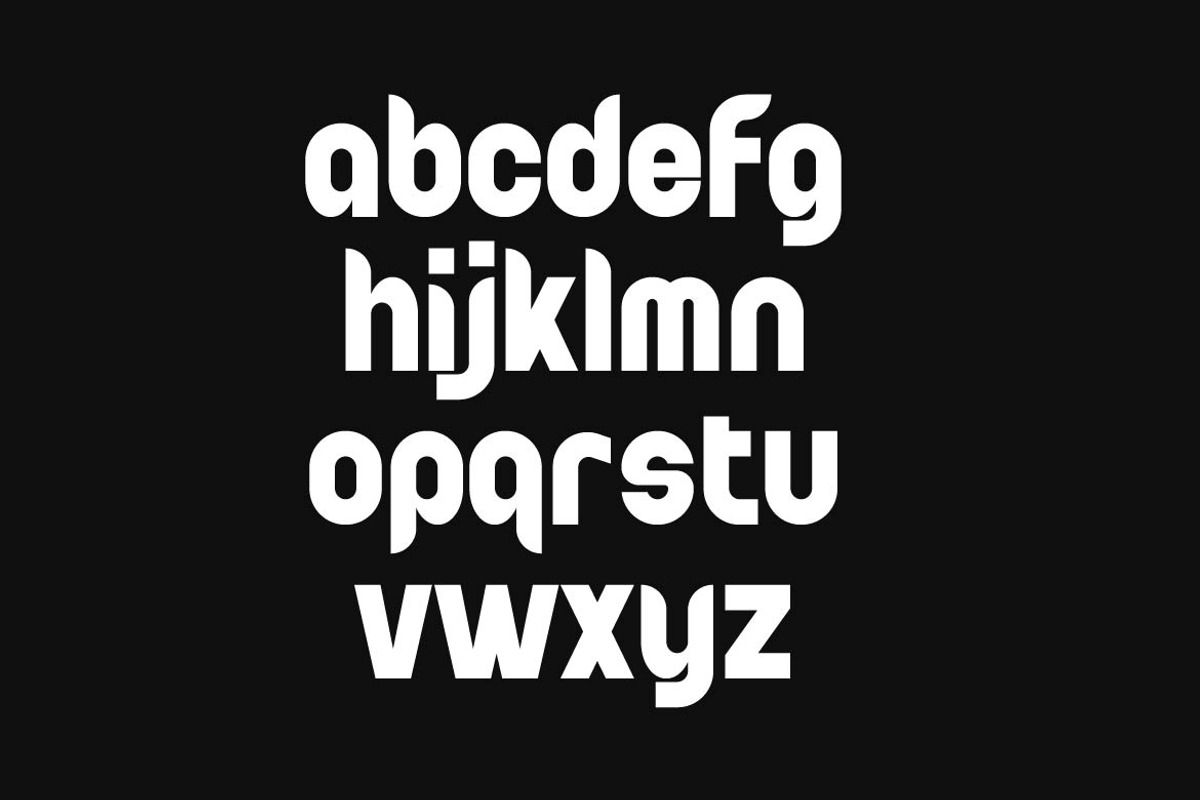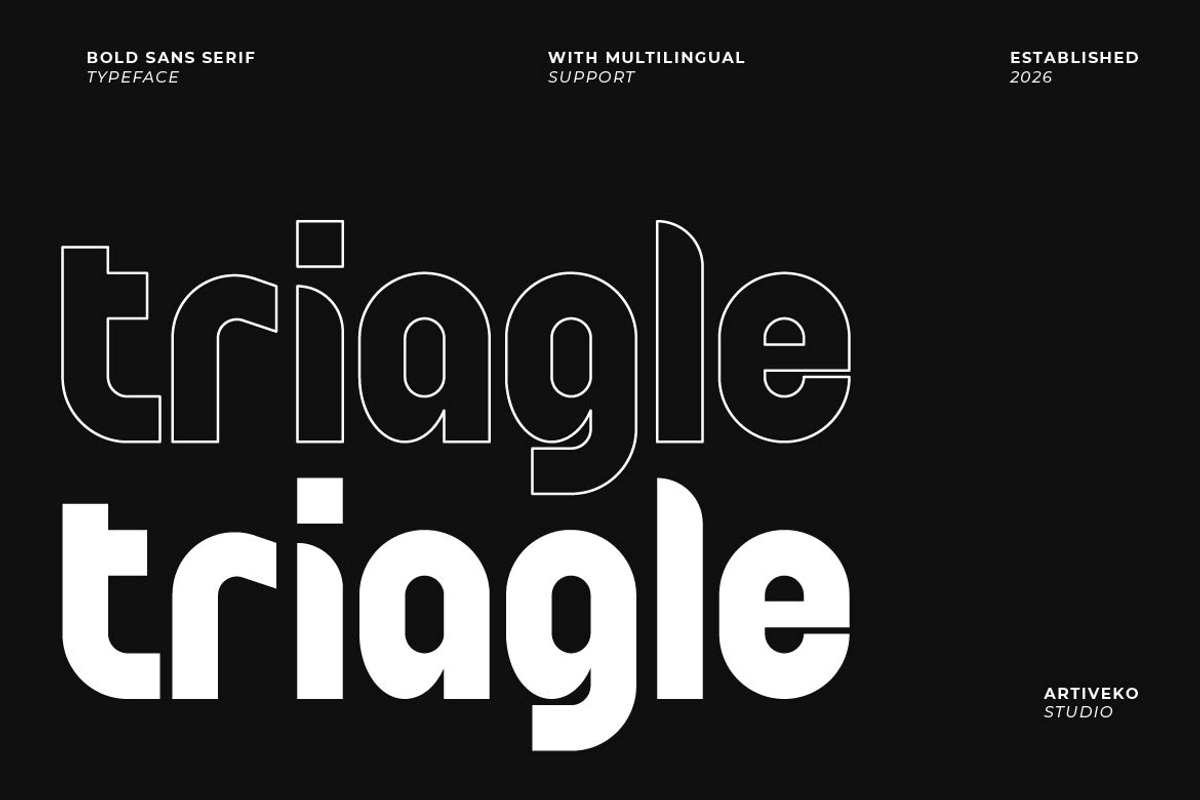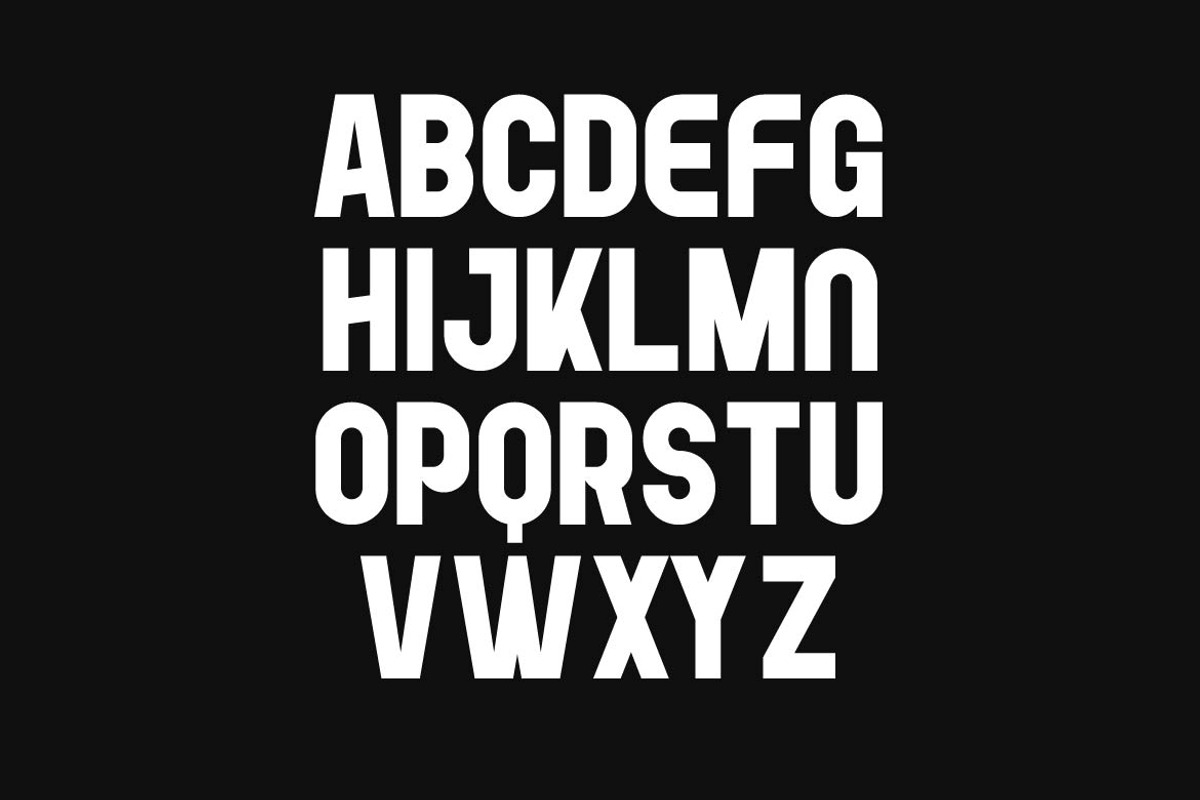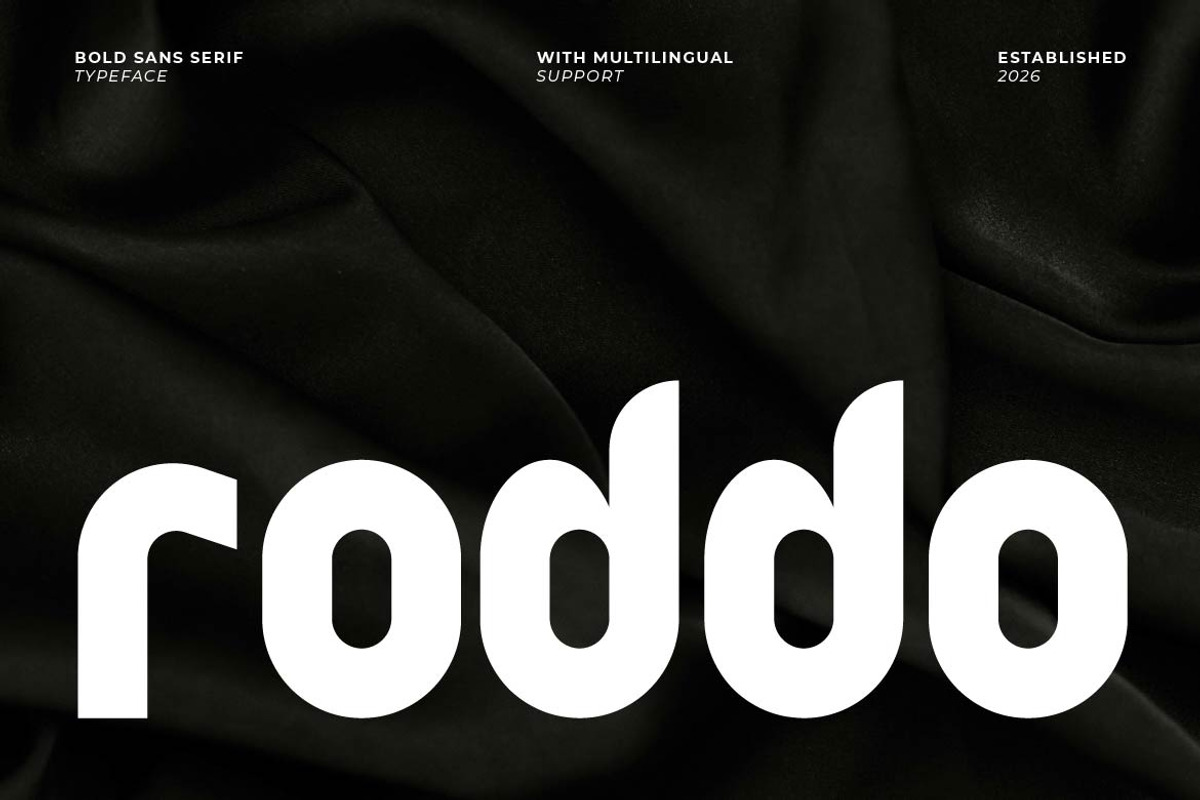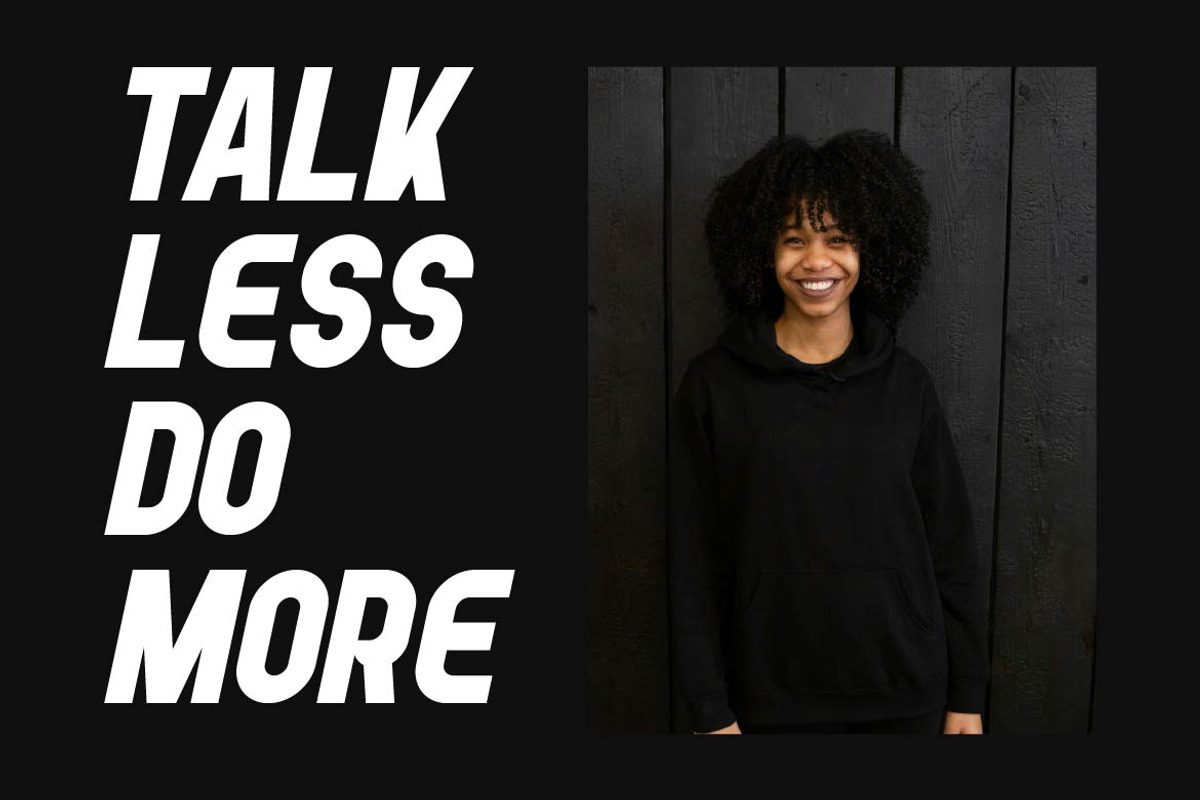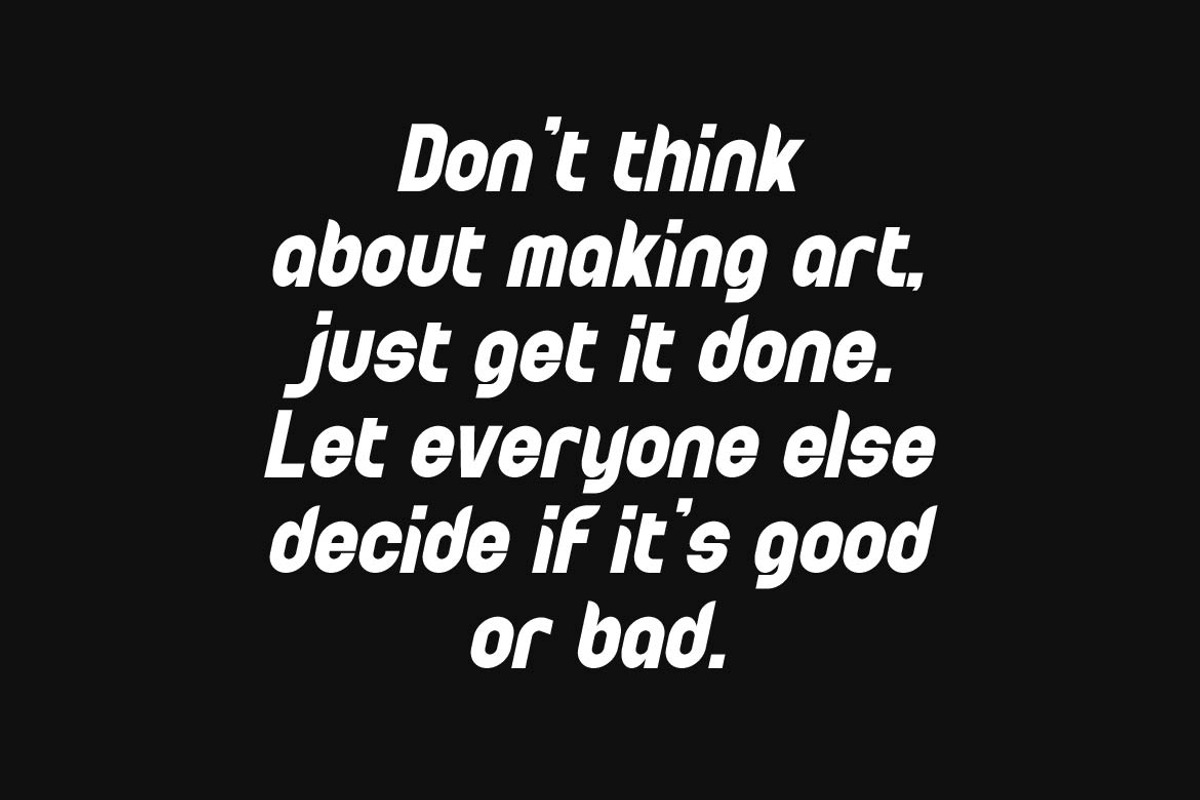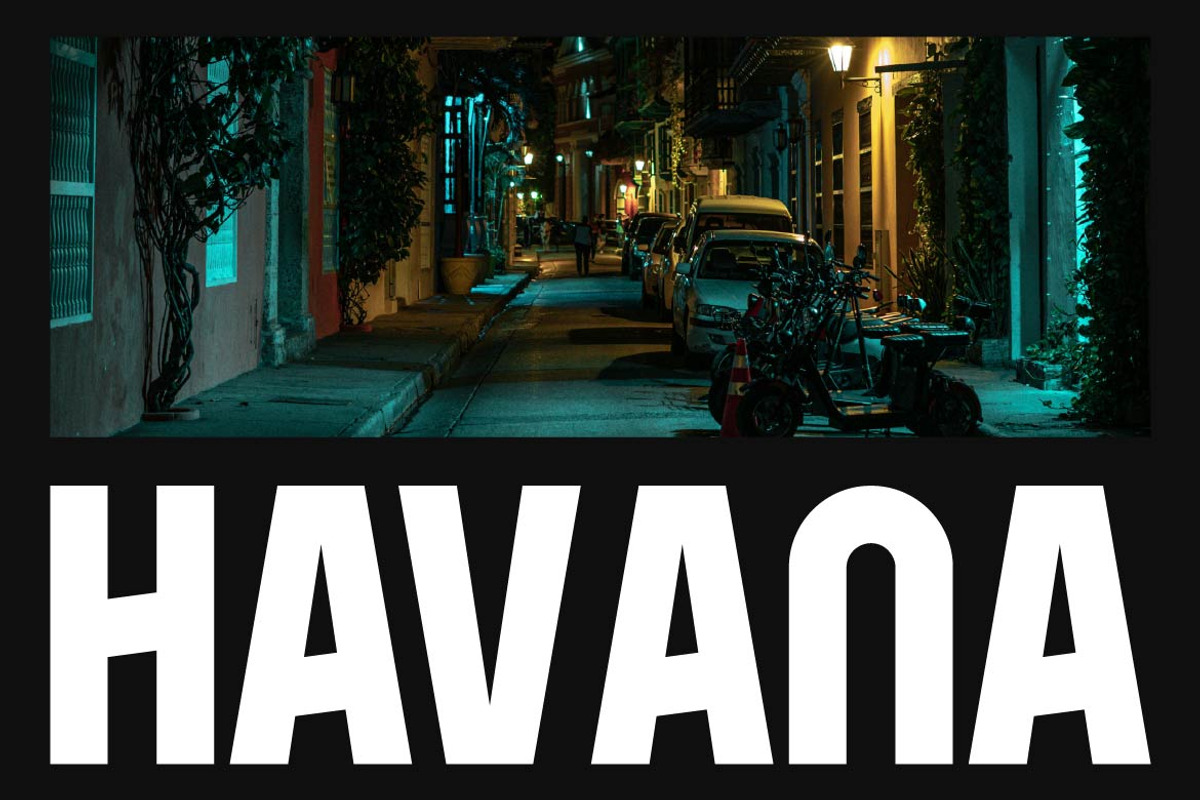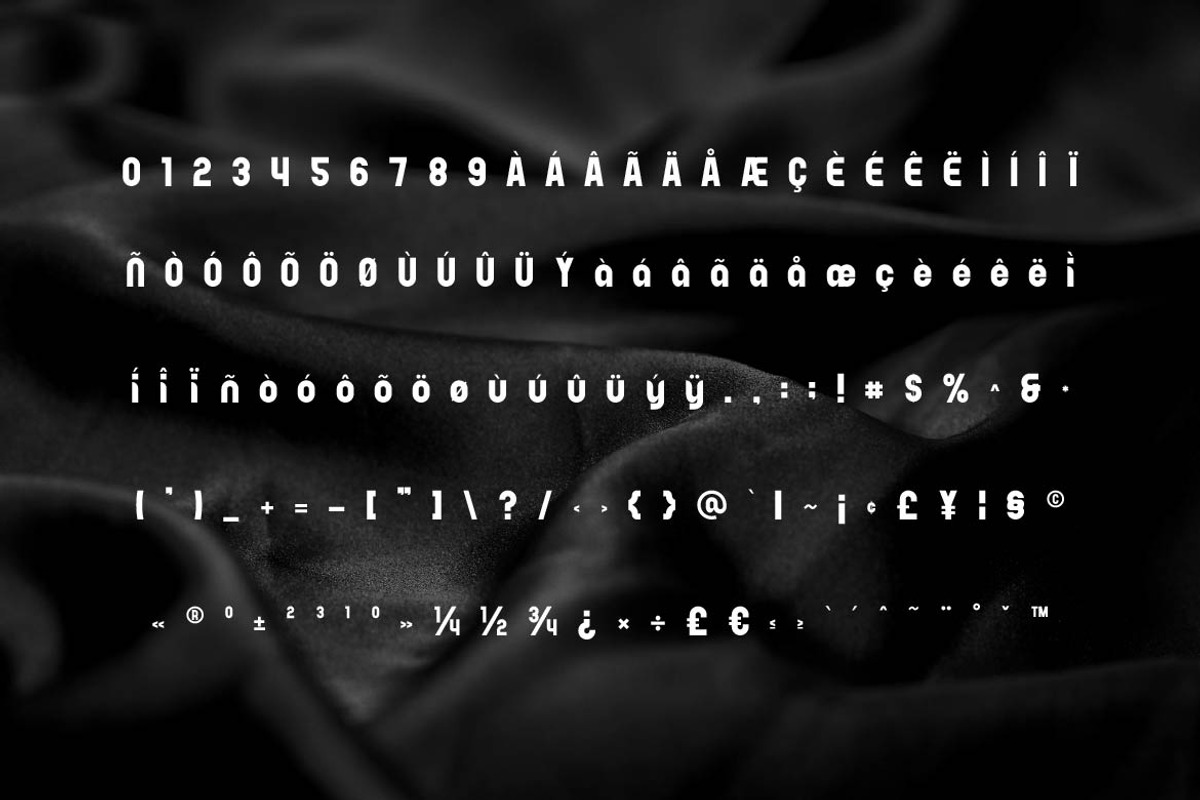
Roddo – Rounded Bold Sans Serif
Roddo is a rounded bold sans serif typeface that combines strength with a friendly and approachable personality. With smooth curves, thick strokes, and balanced proportions, Roddo delivers a soft yet confident look that stands out in modern design.